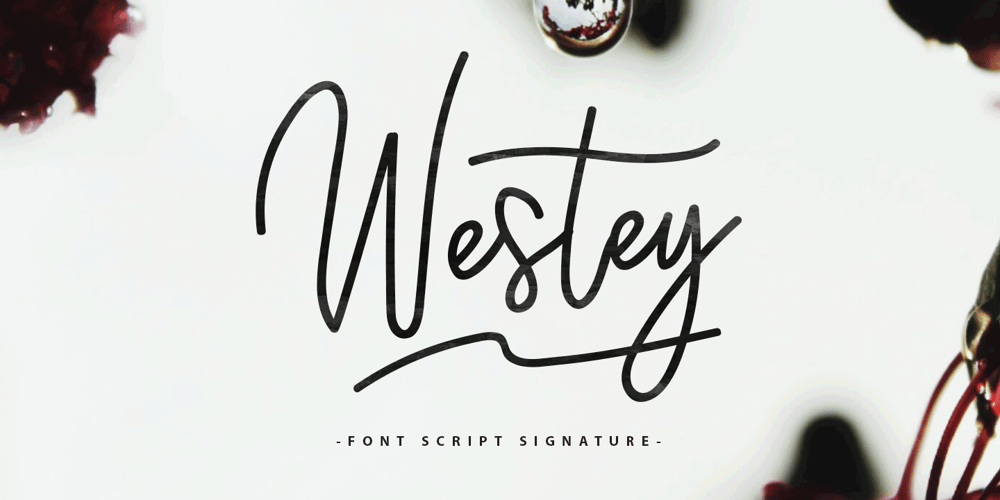
Westey
Westey font
Westey Font Family was designed by Faisal Tanjung and published by sizimon. Westey contains 2 styles and family package options. Westey is a script signature, beautiful for wedding card designs, logotype, website header, fashion design and any more. Westey come with 73 Glyph alternates and 63 Swash Characters. It contains a full set of lower & uppercase letters, a large range of punctuation, numerals, and multilingual support. – PUA encode – Bonus Swash – Multilingual support : (Danish,Finnish,English,,Spanish,Dutch,German,Icelandic,Italian,Norwegian,Portuguese,Indonesian, Swedish) If you have any question please do not hesitate to contact me.Thank You!